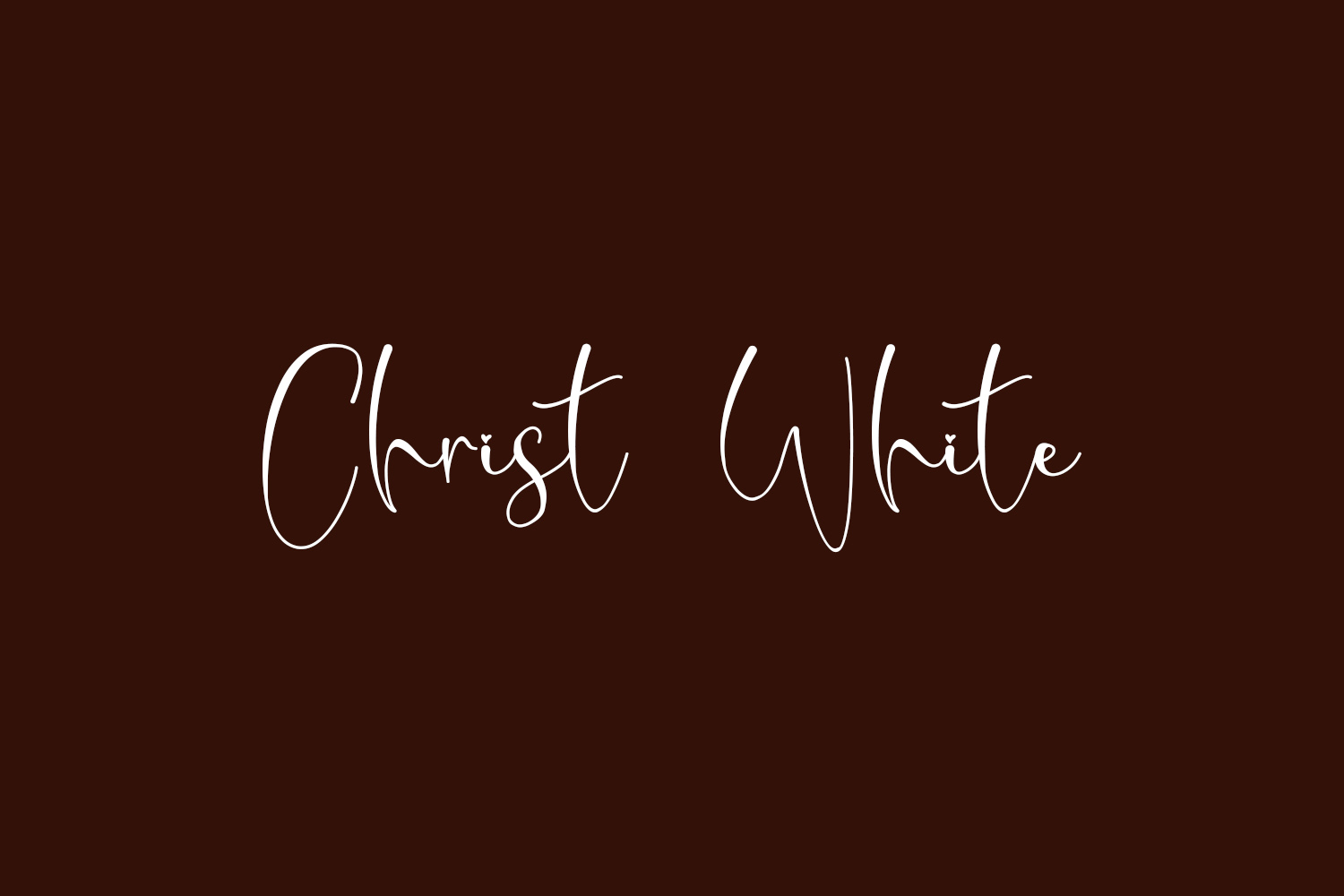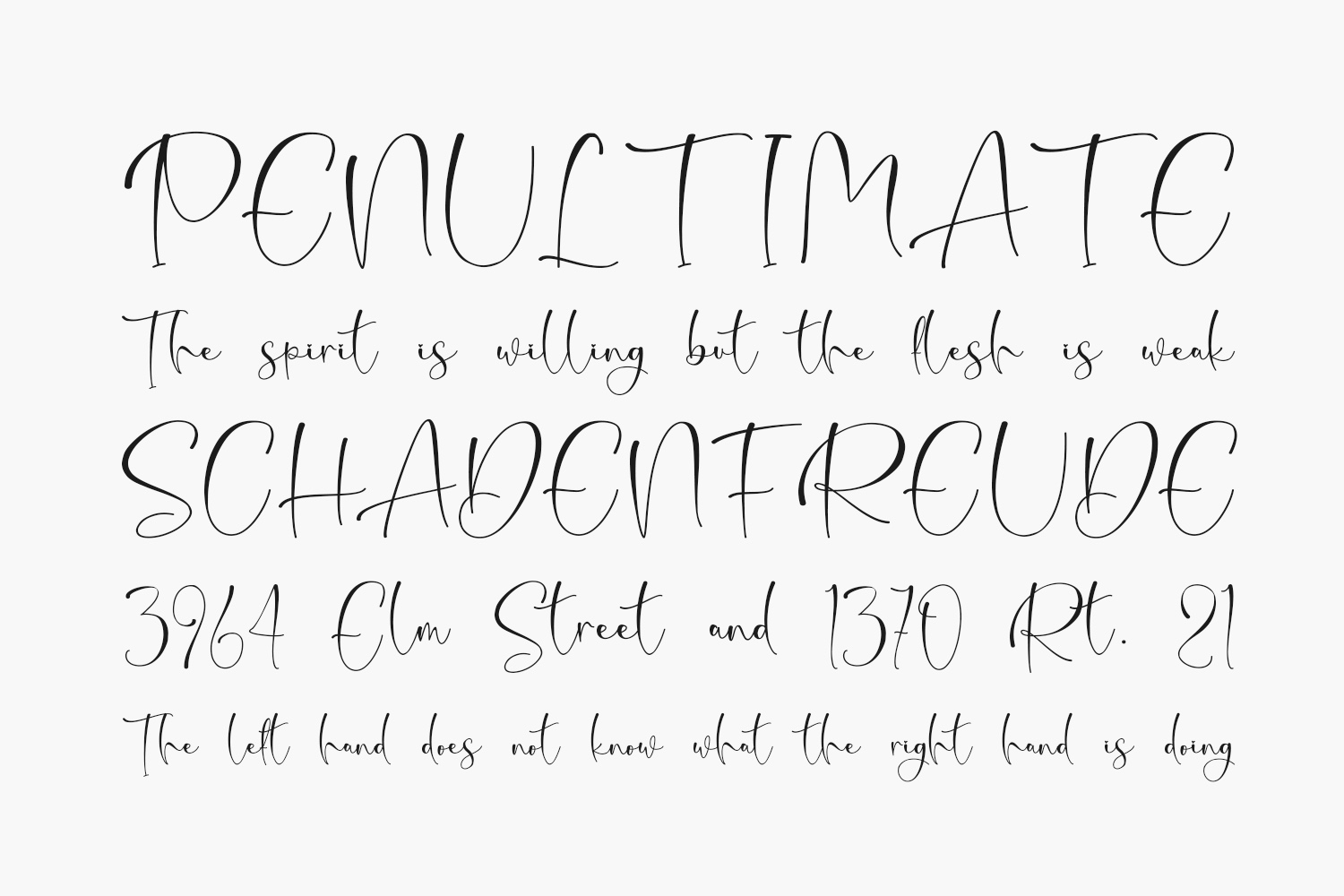
Christ White Free Font is a gorgeous handwritten font. It has flowing letters that will give your designs a unique and sweet look. This versatility will appeal to a wide range of crafty ideas, from letterheads and titles, to stationery. Christ White Free Font was designed by Letterafa Studio and is free for personal use only. Please purchase the full version for commercial use.